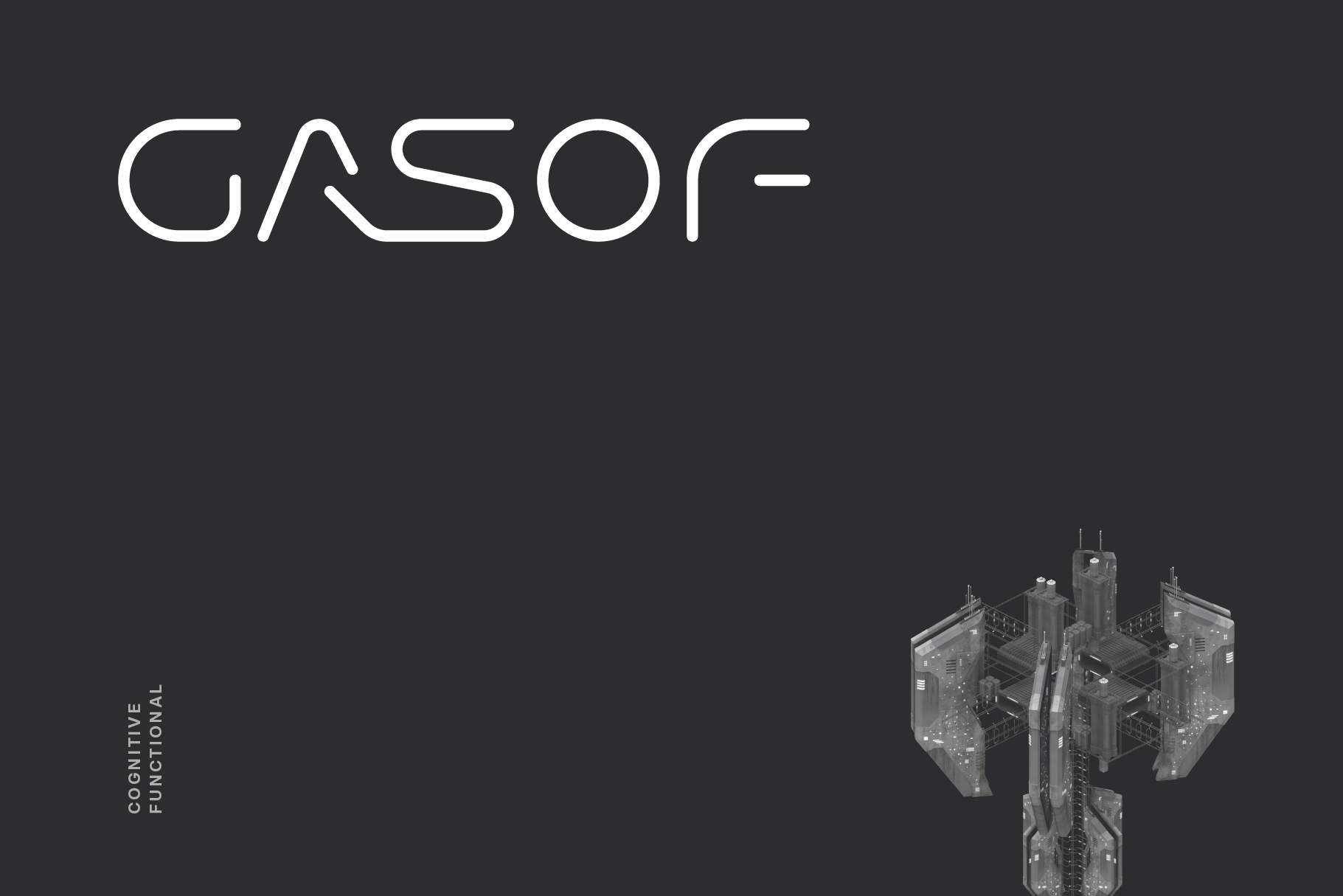
Gasof is a cognitive functional, reductionist display font apt for conceptual prototype, product design, album cover, hud typography and user interface applications.